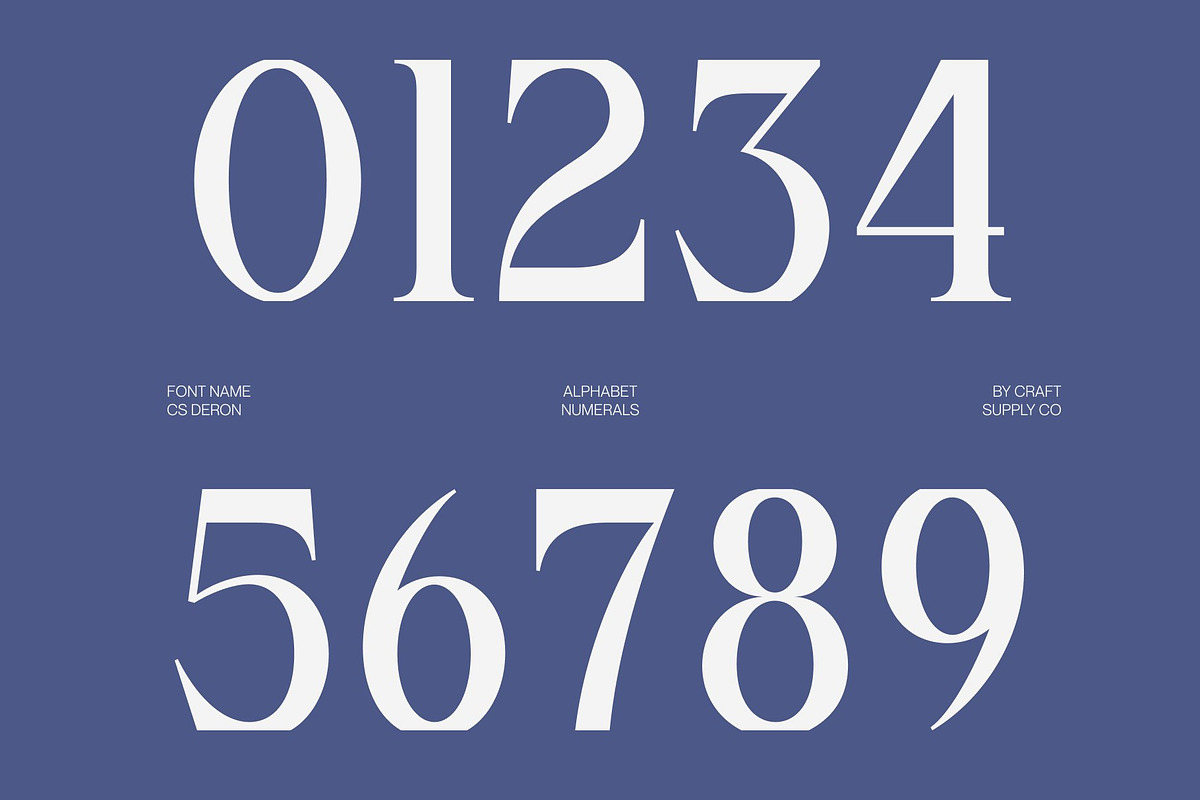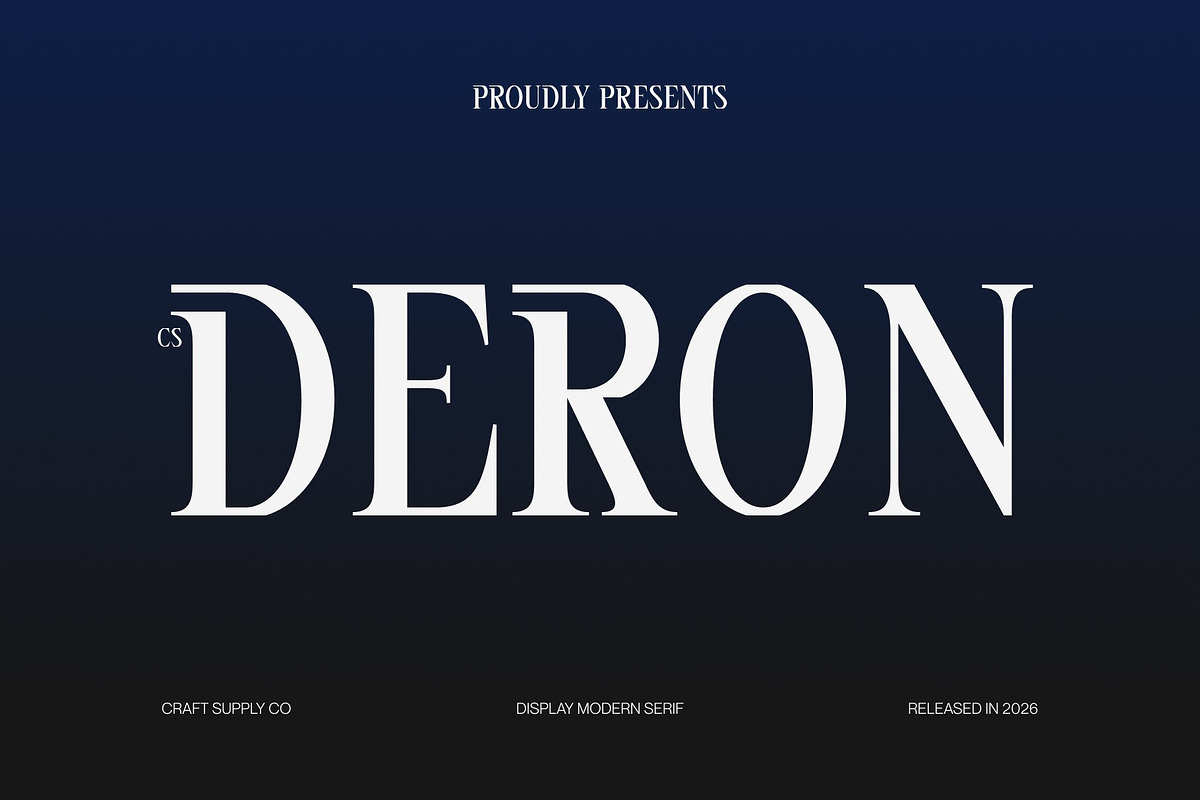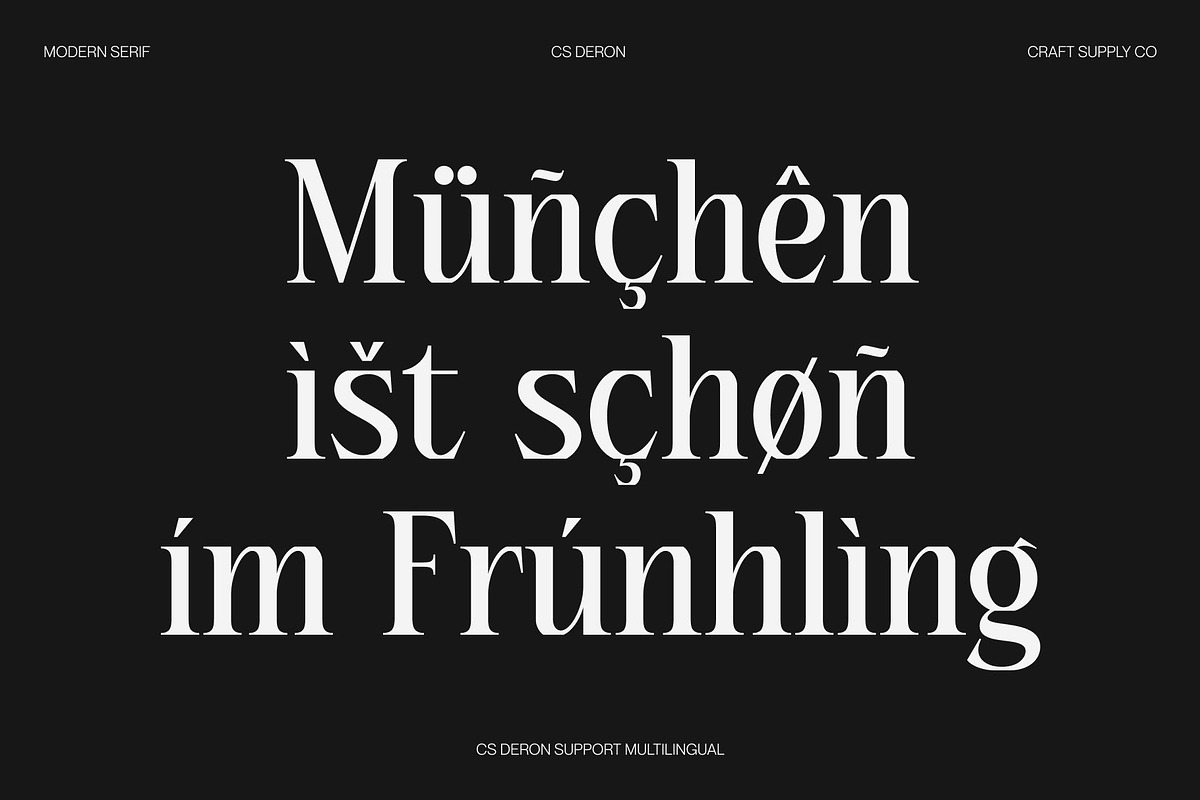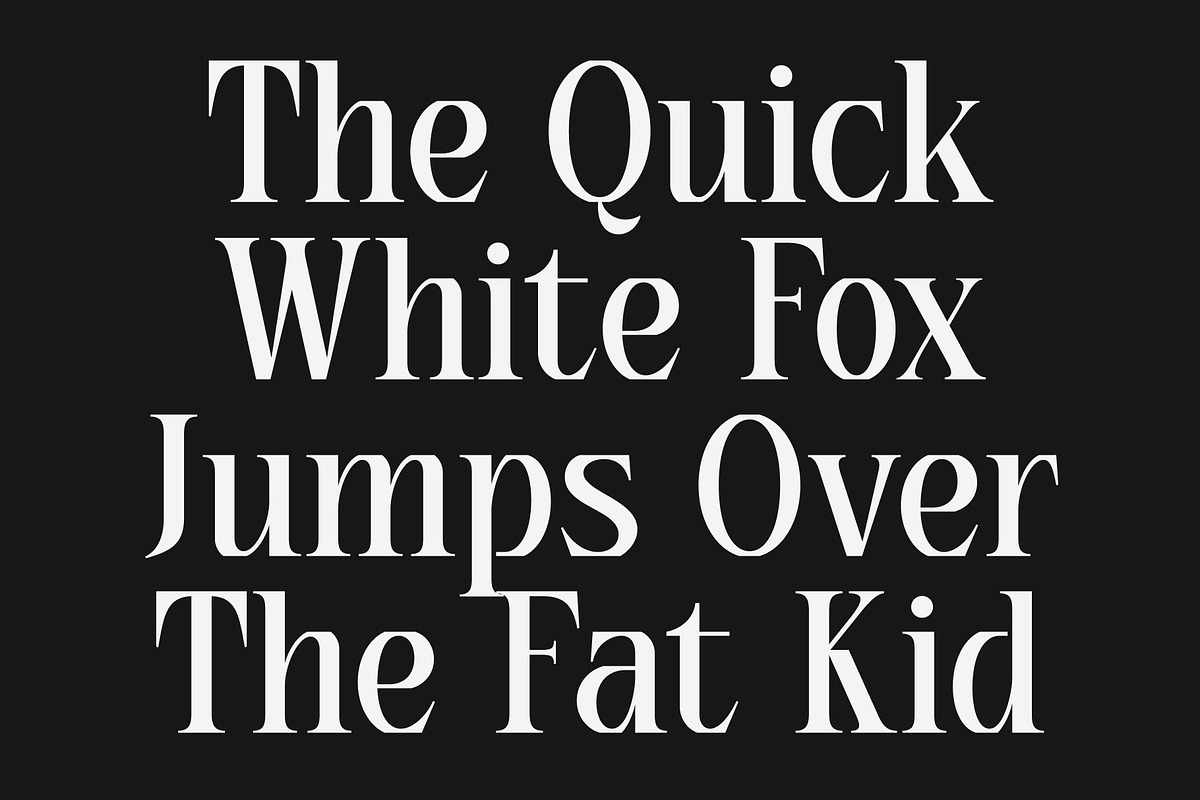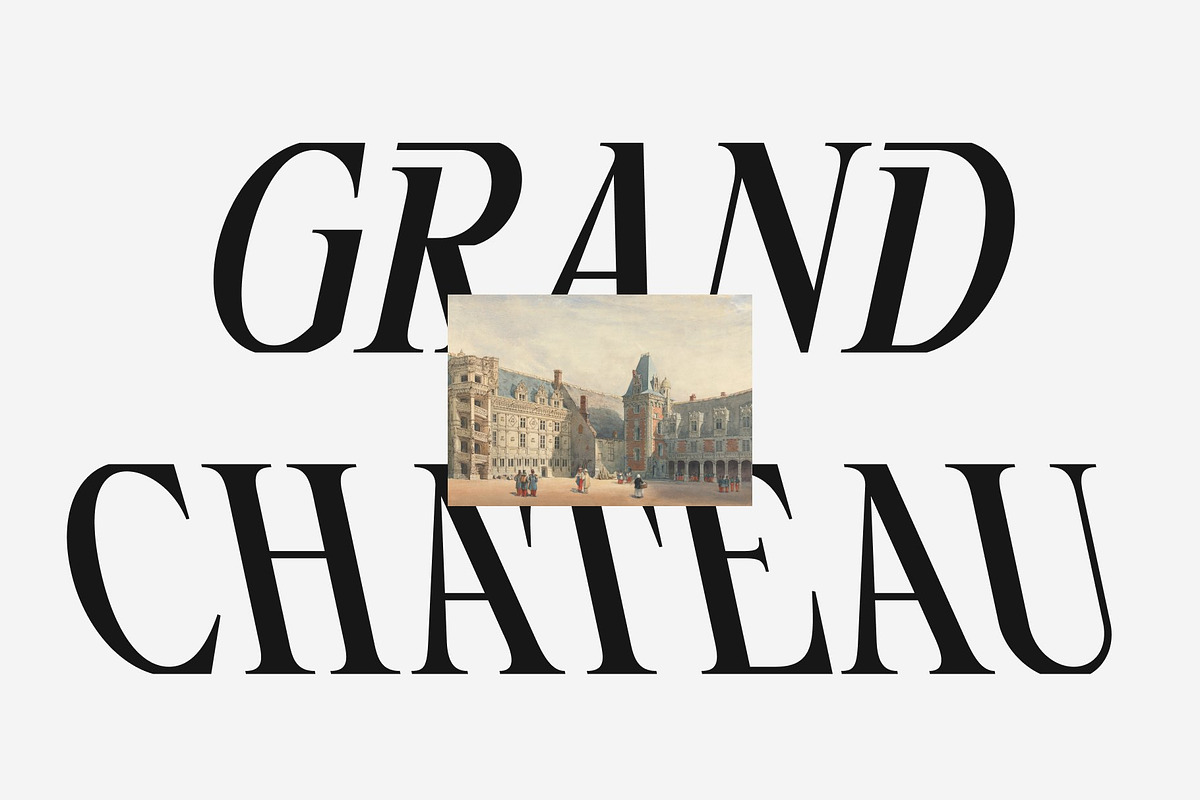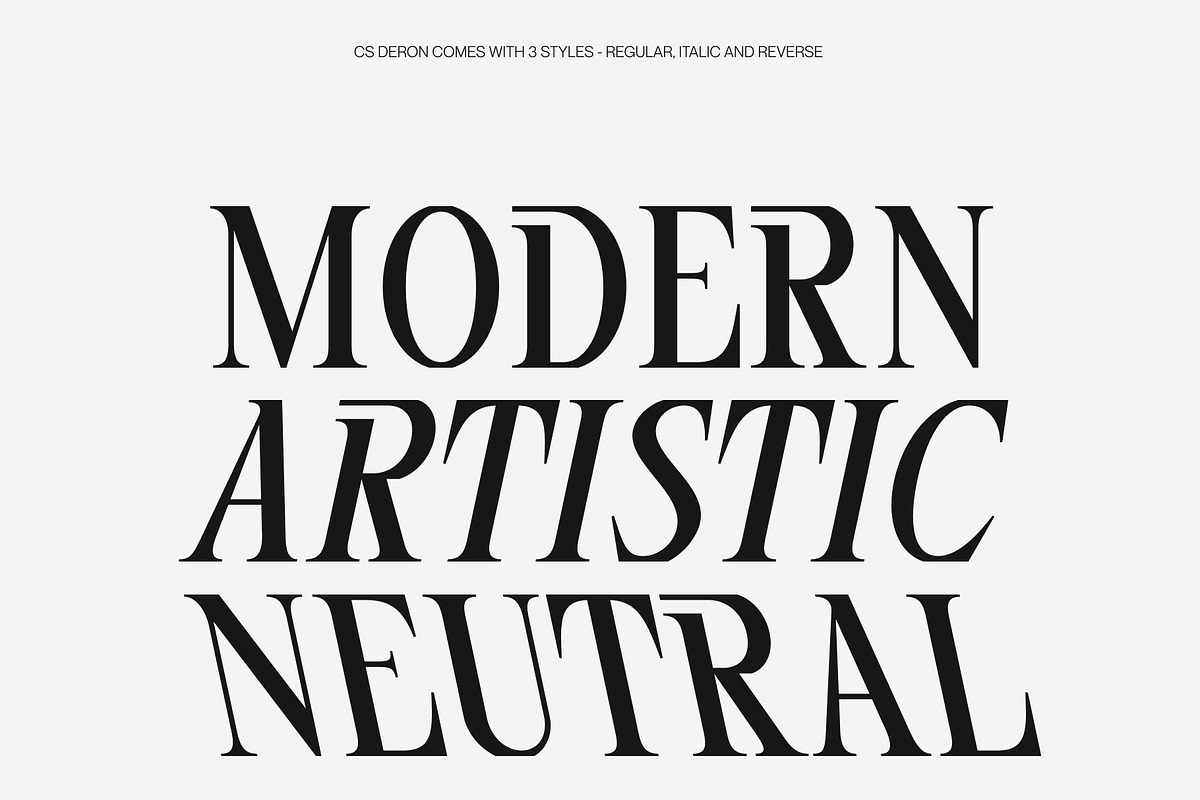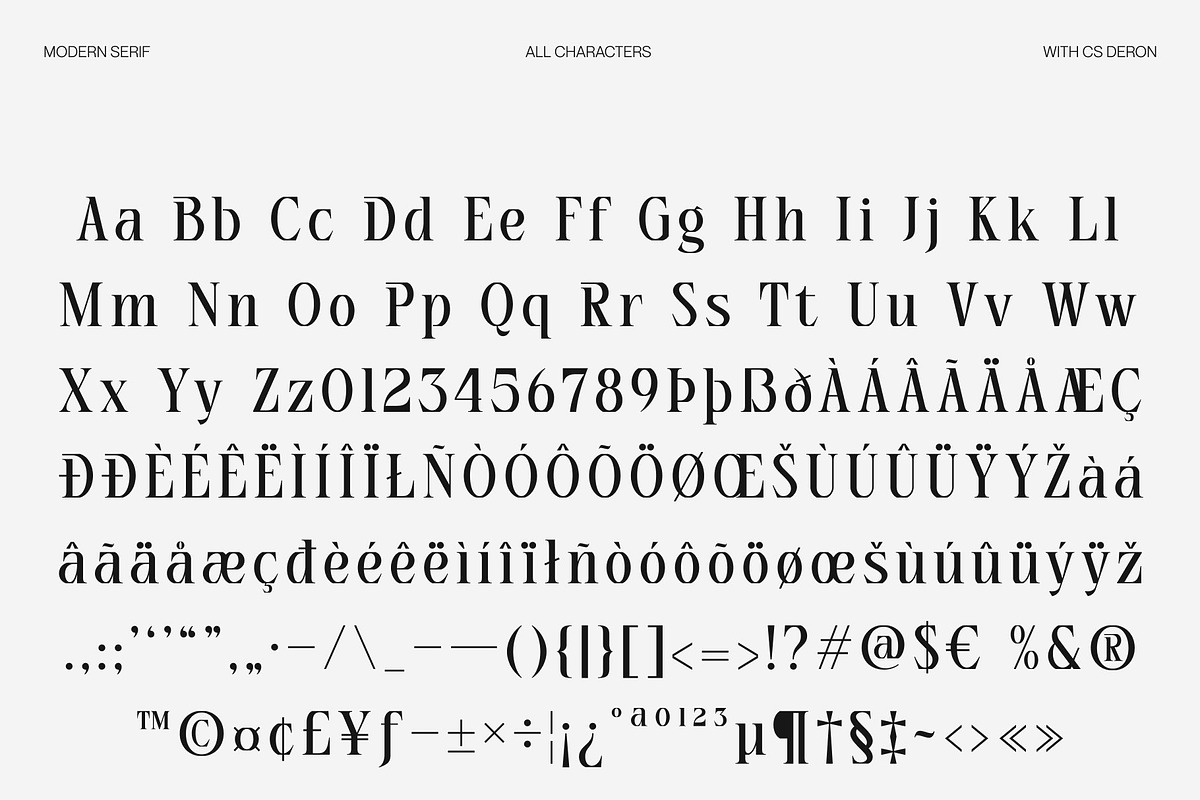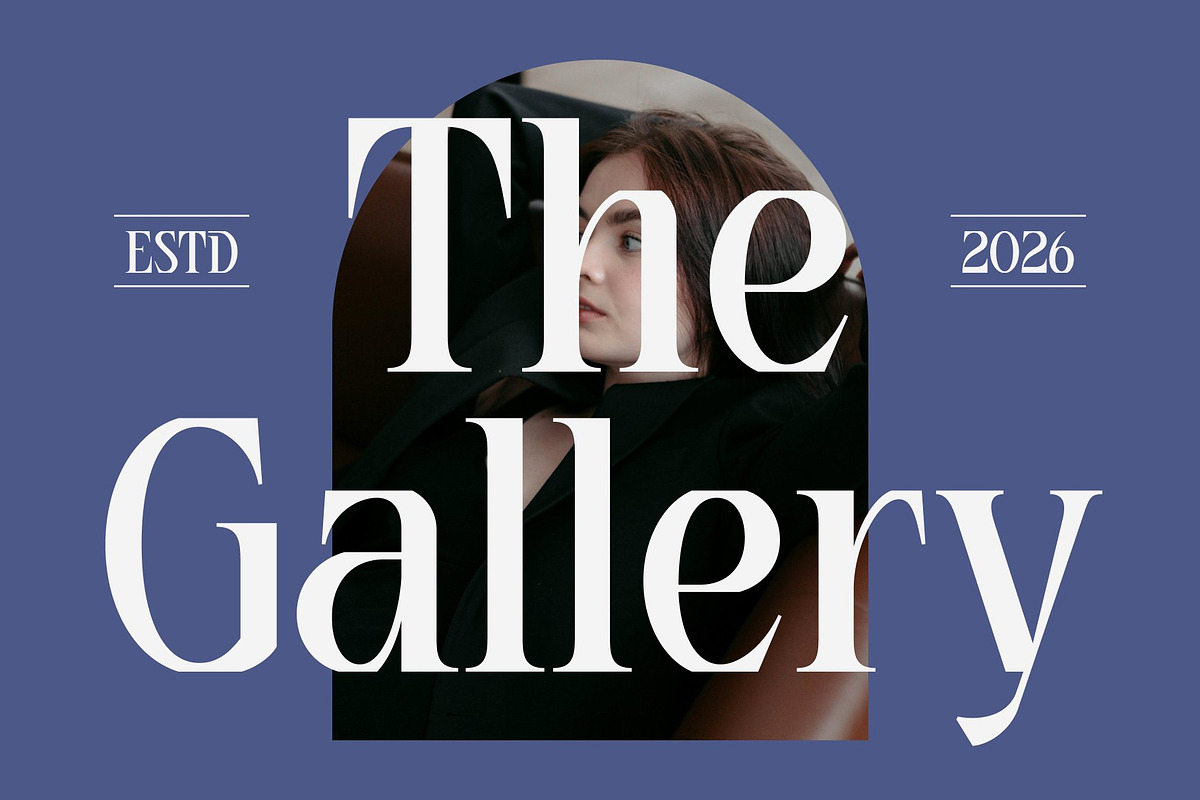
CS Deron – Modern Serif Font
CS Deron – Contemporary Serif with Distinctive Urban Character
Modern Serif with Unique Contemporary Style This is a contemporary serif font designed to combine classic sophistication with bold modern expression. Featuring distinctive details and unconventional accents on several letterforms, this typeface creates a strong visual identity that feels fresh, creative, and full of personality. It is crafted for designers who want typography that stands out with originality while maintaining a refined serif foundation.
Unique Details with Eye-Catching Appeal The defining feature of this font lies in its unique design elements that add character and individuality to every letterform. These unexpected details create visual interest and a memorable silhouette, allowing the font to command attention in both large headlines and branding applications. The result is a typeface that feels expressive, stylish, and instantly recognizable.
Contemporary Energy with Bold Personality This font balances modern creativity with structured serif elegance, making it ideal for projects that demand a strong visual voice. Its confident character and distinctive styling bring an urban-inspired edge to typography while preserving readability and sophistication. This combination makes the font versatile and impactful across a variety of design directions.
Perfect for Posters, Logos, and Streetwear Design From bold posters and logo design to streetwear branding and creative campaigns, this font offers a versatile typographic solution. Its combination of contemporary serif structure, unique details, and expressive character ensures your designs feel modern, distinctive, and visually powerful.
CS Deron Regular
CS Deron Italic
CS Deron Reverse Italic